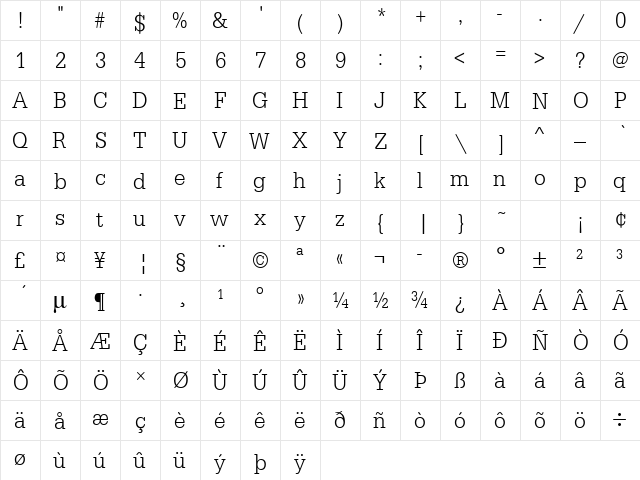
URWTypewriterTLigExtNar Regular
Design Context for URWTypewriterTLigExtNar Typeface
URWTypewriterTLigExtNar uses fixed-width spacing throughout, giving it the structured, systematic character associated with coding environments and technical documentation.
Well-suited to data-driven dashboards, coding tutorials, and any design that wants to reference the world of programming.
Pro Tip: Use URWTypewriterTLigExtNar with slightly increased line-height for extended reading — fixed-width spacing can feel dense in longer passages without extra breathing room.